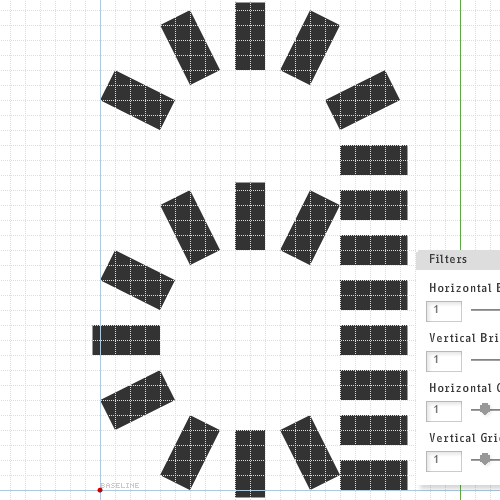
• Wink, Wink...
luv it!
Awesome.
Very unique and elegant!
What a fresh concept!
Even though I would reconsider some numerals (1,2,5 and 7)...
Wonderful.
Frickin' awesome.
You really raised the bar with this one. 10/10
Great execution on this one. I had attempted experiments like this with individual bricks that failed miserably. Well done!
I'm thinking dominoes. Very nice font.
@ Em42: yes the “2” and “5” sharp corners are not very viable. I’ll look around for inspiration trough round geometric numerals, and see what comes up. Changing the “1” and “7” will be a bit more difficult.
Improved "2" and "5"
I like the way the straight corner is solved in the t bar: I would have tried also something like that.
But again, that is just my opinion :)
@ Em42: You have to notice that the “f” and “t” horizontal crossbars are not dependent of a round corner. But in the numerals it's a different story, BTW the alternates “2” and “5” run a tiny bit horizontally off the grid.
What do you all think?
What about this (note that I used Photoshop to create the image, so I don't know if the bricks will fit correctly):
Yep! That’s the key.
The "5" is the same as the original so it fits the grid, the "2"'s only issue is with the horizontal crossbar, it’s a tiny bit shorter than the grid but I don't think it's noticeable.
lol, still wasn't happy with the 5 so I updated it like the 2.
I agree with CMunk. Dominoes!!!
Super job. Very unique :)
thats awesome
Congratulations! FontStruct Staff have deemed your FontStruction worthy of special mention. “Eyelash” is now the current Featured FontStruction.
OMG OMG OMG I can't believe this...lol
I always thought the concept and execution of this wonderful fontstruction is top notch. You really should go ahead and try to do capitals. It works with the numbers so there's no reason why it wouldn't work with capitals.
Ok Saberrider your comment made me take the chance, please tell me what you think about the UC's cause I'm not too sure about some of them.
added some diacritics too...
first of all: it's awesome you did it. i like the Y solution very much.
I think a classic T would work better. The V is again victim of the fontstruct grid limitations. I think a V like shown below could make it more readable.
Other than that it works really well. Great job.
Comment by David Neustadt (saberrider) 3rd july 2009
THX for the tips I've updated it, used the "V" tip on the "W" too.
:)
Comment by jmarquez 3rd july 2009
Cool. :) I think you forgot to change the v though. In general i think you could make the u look like the v looks at the moment, with the fully rounded stroke i mean. in my opinion you should lose the little descending stem at all. a fully rounded Uu will distinct it more from that Vv. The little ascending stem on M and N works well, but you don't have it on m and n. I wouldn't change the lower case here. So if you're crazy about consistency you might think about removing the ascending stem from the upper case MN.
Comment by David Neustadt (saberrider) 3rd july 2009
This is a great font! but it would be great to use international symbols such as ¥, and £. But other than that 10/10
Comment by Harmful 6th july 2009
me encanta esta fuente, en especial los numeros y las minusculas.
El unico simbolo que no veo tan bien es @, pero te doy un 10
Comment by fodkito 6th july 2009
very nicE!
Comment by paulbeckers 6th july 2009
very nicE!
Comment by paulbeckers 6th july 2009
updated.
But I'm keeping the Uc's "M" and "N" as they are for now, thx for the tips Saberrider.
thx for the other coments too.
as for the requested symbols: the @ already exists, and currecy symbols might be here soon.
one day I hope I can figure out how to create those kinds of bricks
HOW THE HECK DID YOU PULL THIS OFF?! IT'S AWESOME!
Comment by TimocomlitaFontermaker 14th september 2016
Comment by jmarquez 16th september 2016
great!
Comment by chupimle 22nd february 2018
Nice domino font! Though I'll reconsider some letters (M, N, V, W).
Comment by Europe2048 28th october 2023